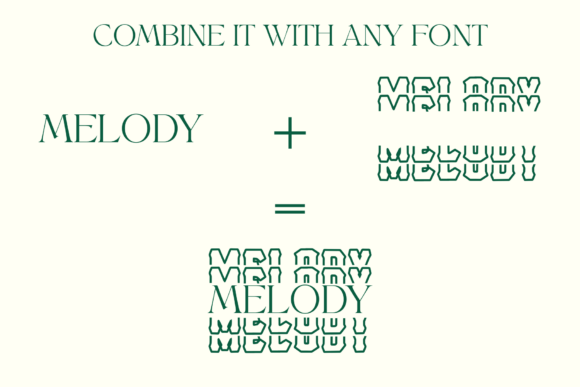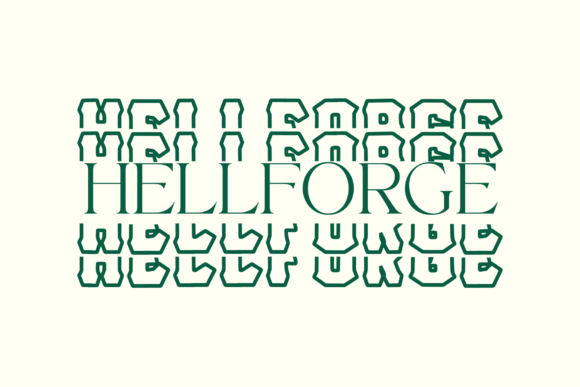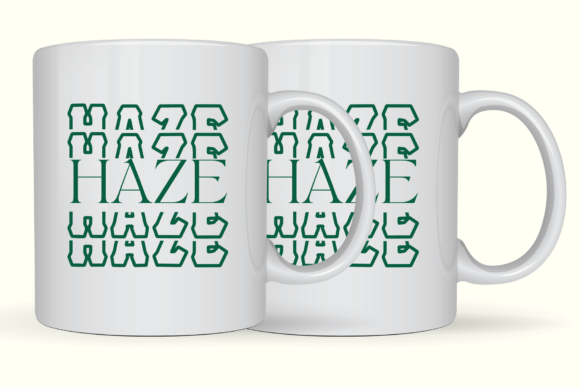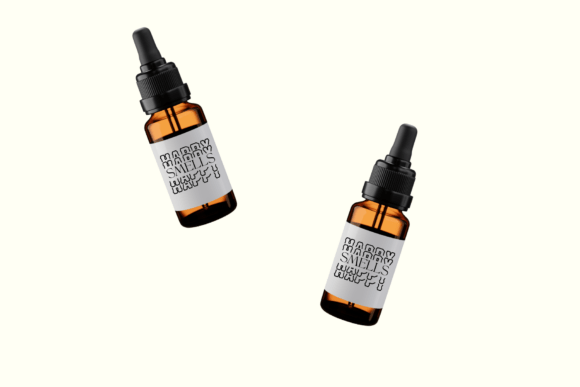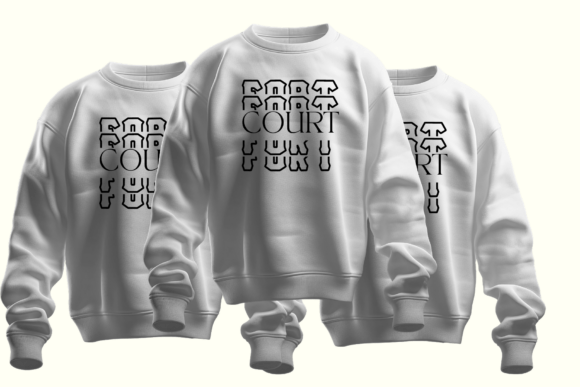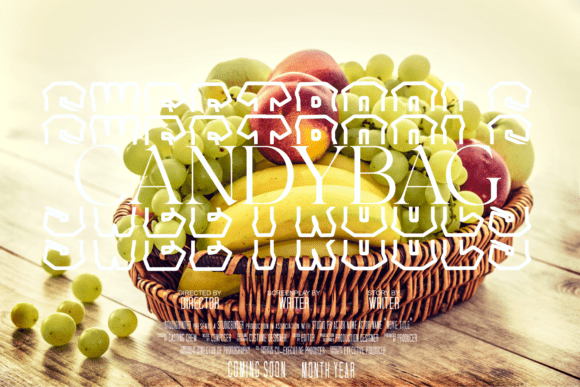
Meet Hell Forge Stacked Monogram Font: The Ultimate Bold and Versatile Font for Designers and Crafters
Are you tired of using ordinary fonts that fail to make an impact? Look no further than the Hell Forge Stacked Monogram Font, a bold and stacked monogram font designed to take your designs to the next level. With its rugged geometry and clean lines, this font is perfect for designers and crafters who want to create stunning visuals that stand out from the crowd.
The Power of Stacked Monograms
Hell Forge Stacked Monogram Font is built for impact, with letters that stand tall, tight, and readable, even in small spaces. The stacked design allows for clean and crisp lines, making it perfect for creating badge-like marks that work beautifully on shirts, tumblers, patches, and thumbnails. Whether you’re designing for personal or commercial use, this font is sure to make your designs pop.
Why This Stacked Monogram Font Sells
So, what makes Hell Forge Stacked Monogram Font so popular among designers and crafters? For one, it offers fast personalization that still looks custom. With this font, you can create compact and powerful designs for jersey nameplates, cap badges, tool tags, and gym merch. The font’s clear counters also keep vinyl cuts and engravings crisp on various materials, including wood, steel, acrylic, and leather.
The Hell Forge Stacked Monogram Font is incredibly versatile, making it perfect for a wide range of design applications. Some of the many ways you can use this font include:
- Custom apparel design: Create stunning jerseys, t-shirts, and hoodies with bold and eye-catching monograms.
- Sign making: Use the font to create professional-looking signs for businesses, events, or personal projects.
- Product customization: Add a personal touch to products like tumblers, water bottles, and phone cases with custom monograms.
- Patch design: Create custom patches for clothing, bags, or accessories with bold and readable monograms.
Why Choose Hell Forge Stacked Monogram Font?
So, why should you choose Hell Forge Stacked Monogram Font for your design needs? Here are just a few reasons:
- Unique and bold design: The font’s stacked monogram design is sure to make your designs stand out.
- Highly versatile: Use the font for a wide range of design applications, from apparel to signs to product customization.
- Fast personalization: Quickly create custom designs that look professional and polished.
If you’re looking for a bold and versatile font that can take your designs to the next level, look no further than Hell Forge Stacked Monogram Font. With its rugged geometry, clean lines, and seamless integration with popular design software, this font is perfect for designers and crafters who want to create stunning visuals that stand out from the crowd. Try it out today and see the impact it can make on your designs!